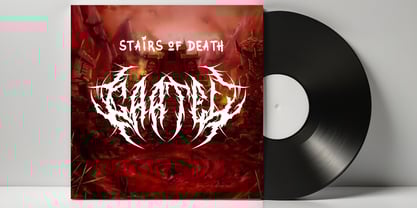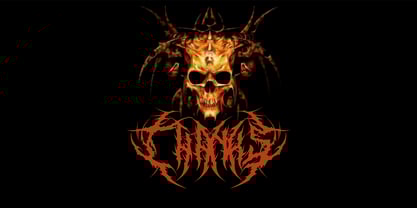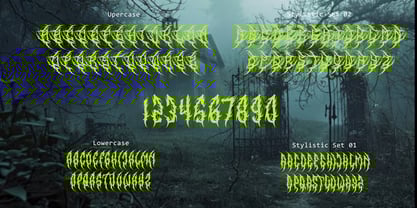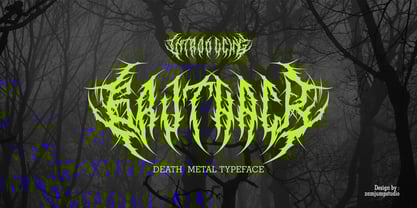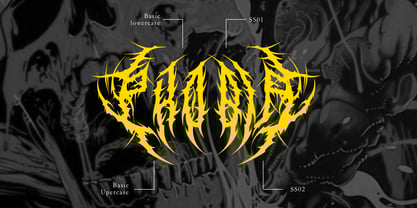
Gruthack
by Zamjump
Gruthack is a brutal and aggressive death metal typeface designed to capture the raw energy of extreme music. Featuring unique initial, middle, and terminal characters, it allows for dynamic and chaotic letter combinations, making it perfect for creating intense and striking typography.
This typeface is ideal for various print and digital media applications, including album covers, band logos, merchandise, posters, and social media graphics. With its sharp edges, distorted shapes, and sinister atmosphere, Gruthack delivers the ultimate visual impact for any project that demands a dark, powerful aesthetic.